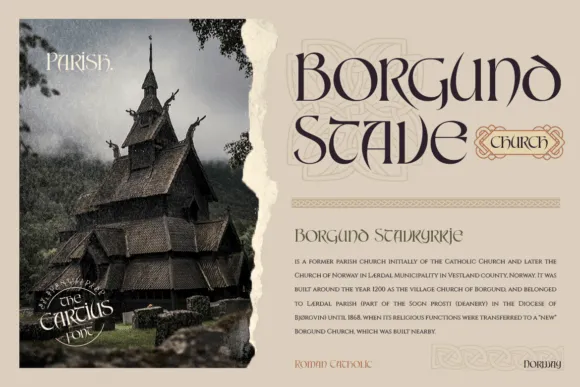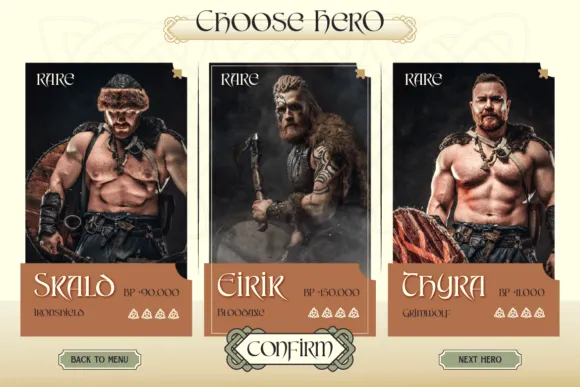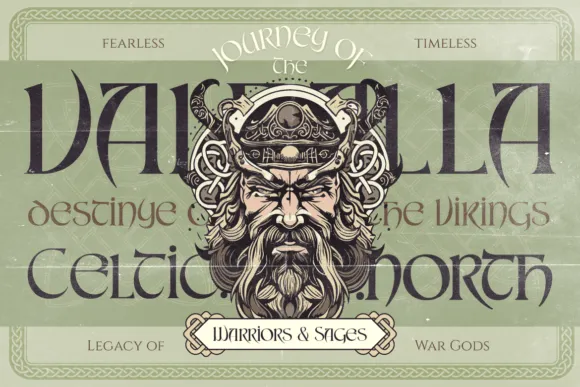
Cartius Font diverted the furious style of antiquated Norse culture with striking, complex strokes that reverberation the strength of Viking custom. This textual style is roused by old original copies, sacrosanct text, and conventional Celtic craftsmanship.
Cartius Font style arose around the sixth to seventh hundreds of years, and possessed locales like Ireland, Scotland, and England.
Ideal for adding a hint of verifiable class with a Viking sense, soul of the Celtic world, middle age plan, and dream subjects, ideal for projects that require a special and immortal look.
Providing your text with a right away rich of the heritage Celtic culture and unmistakable and spellbinding style.